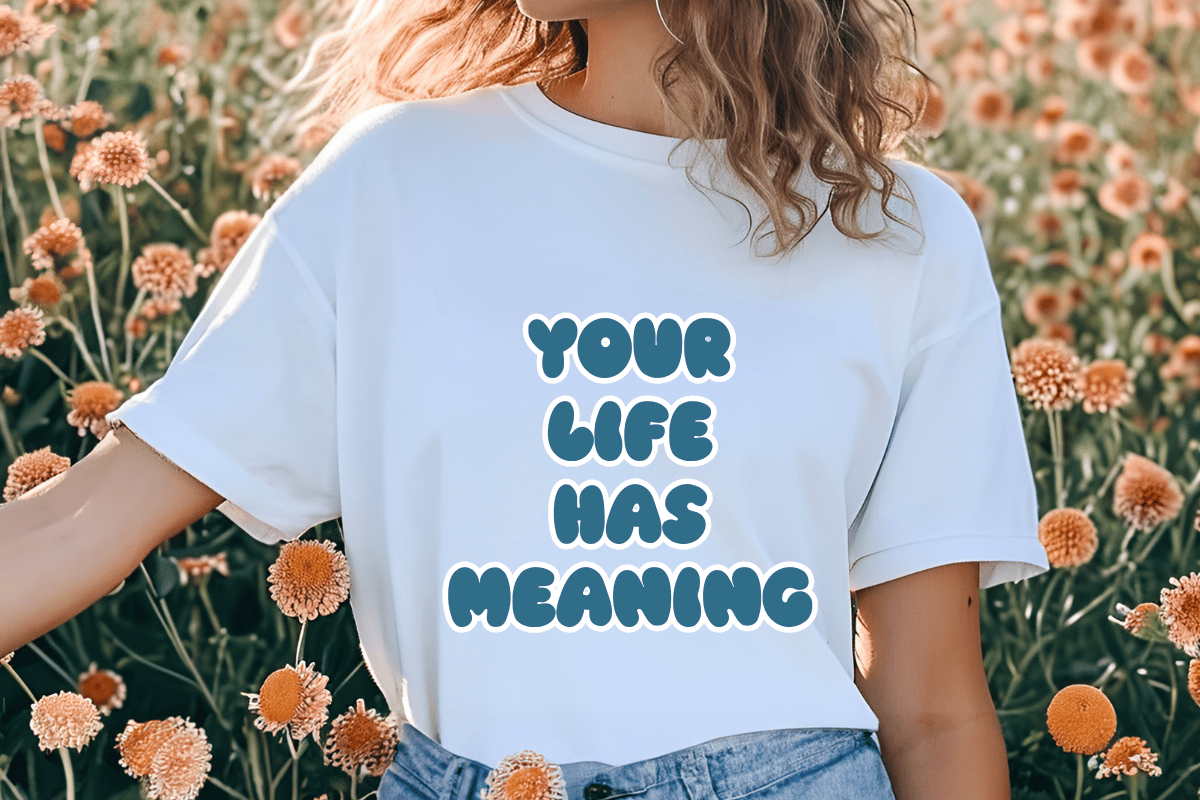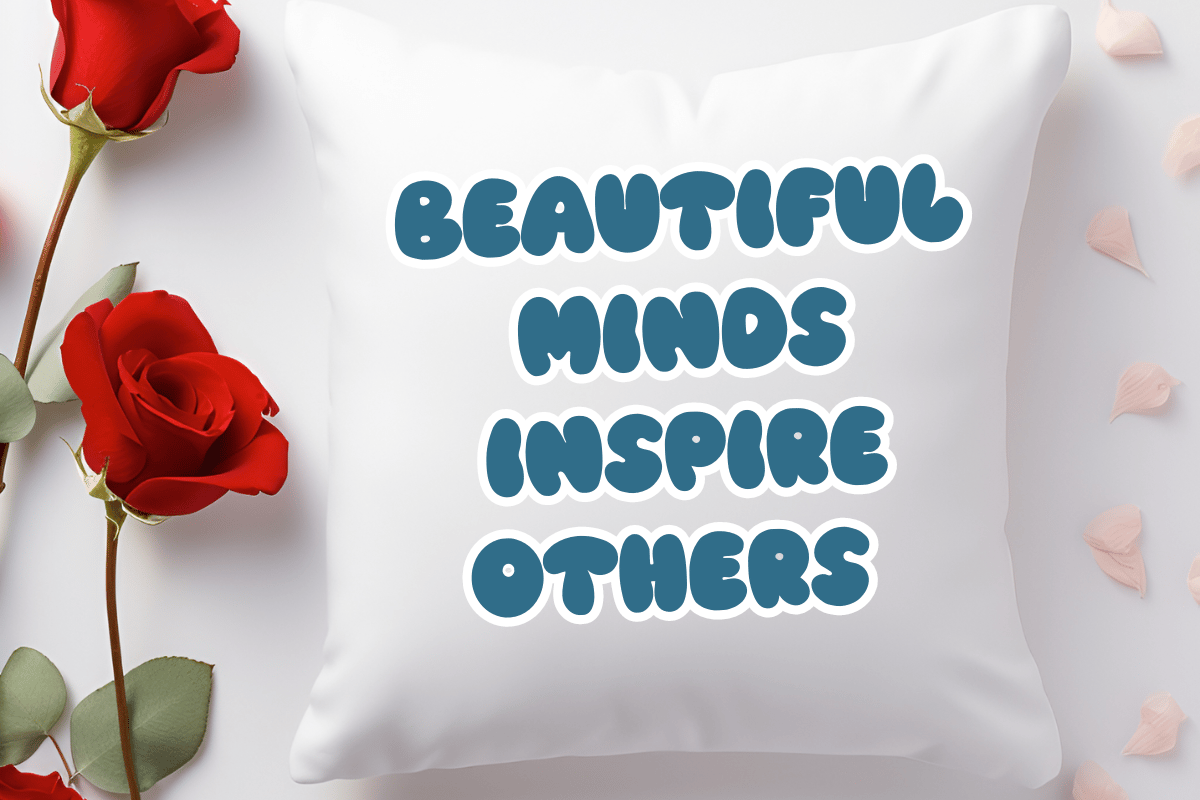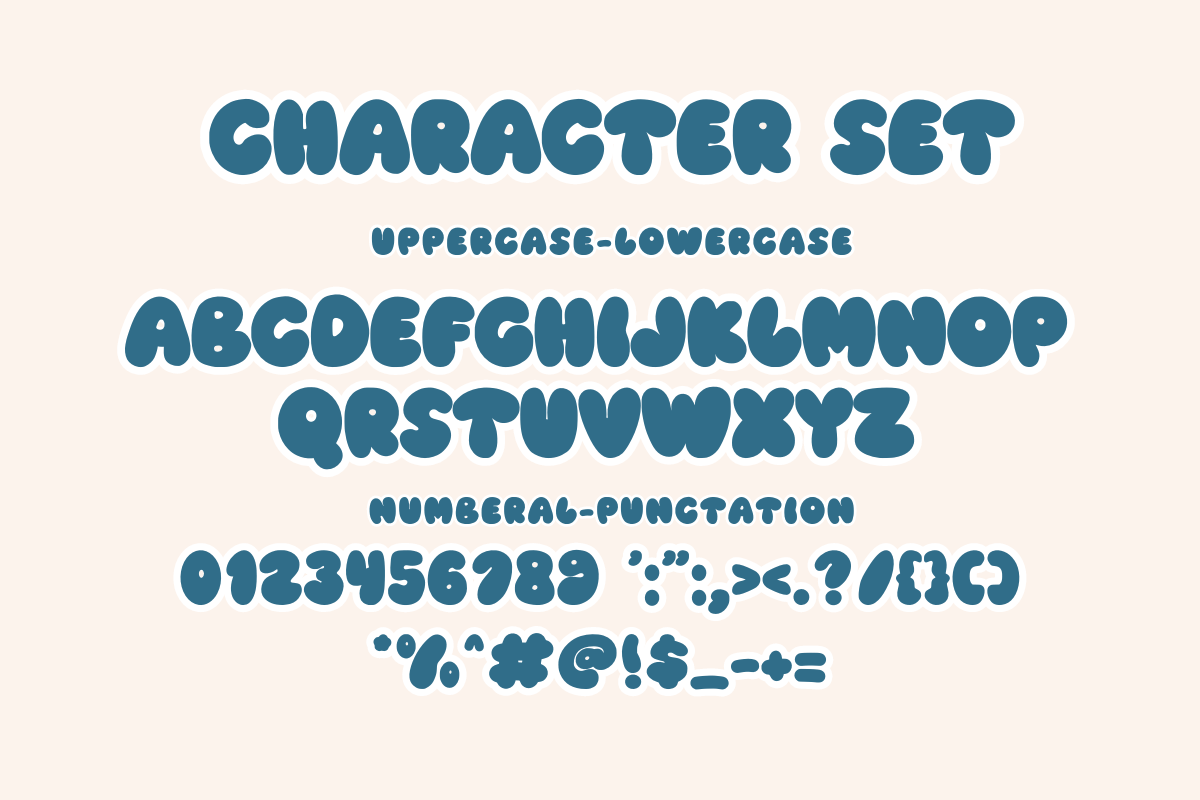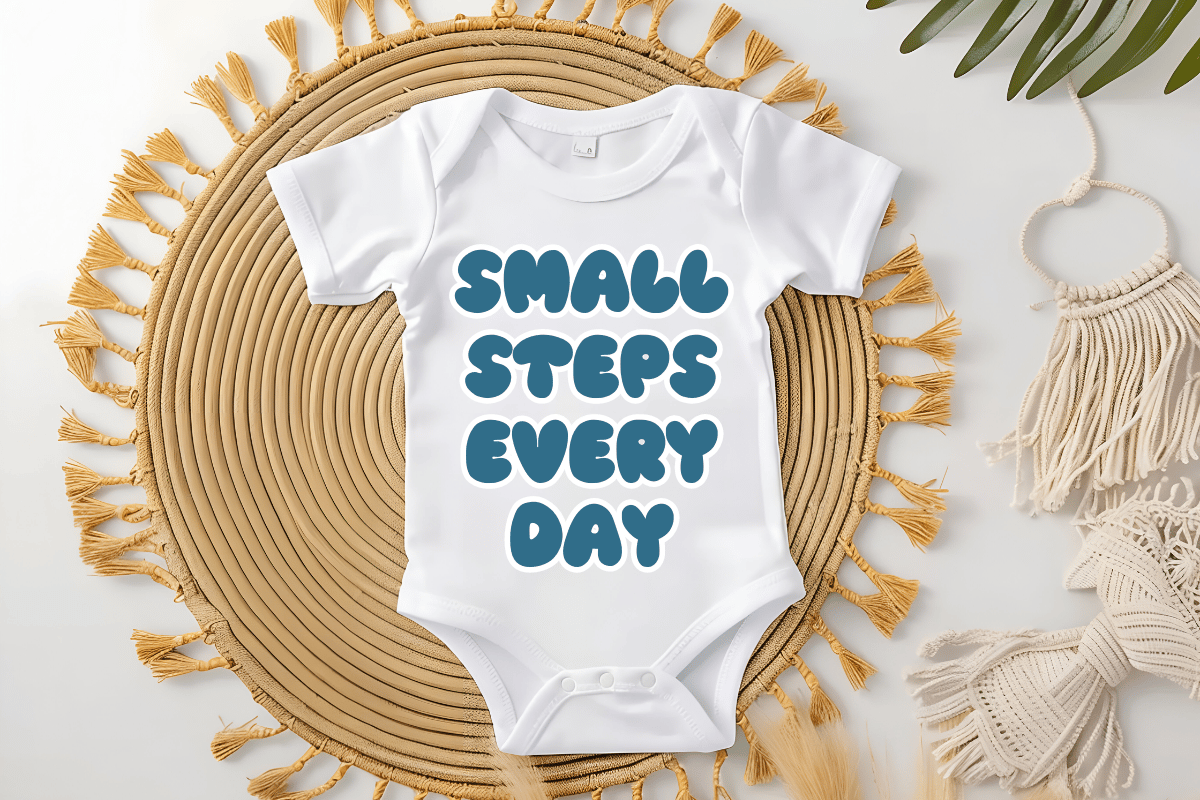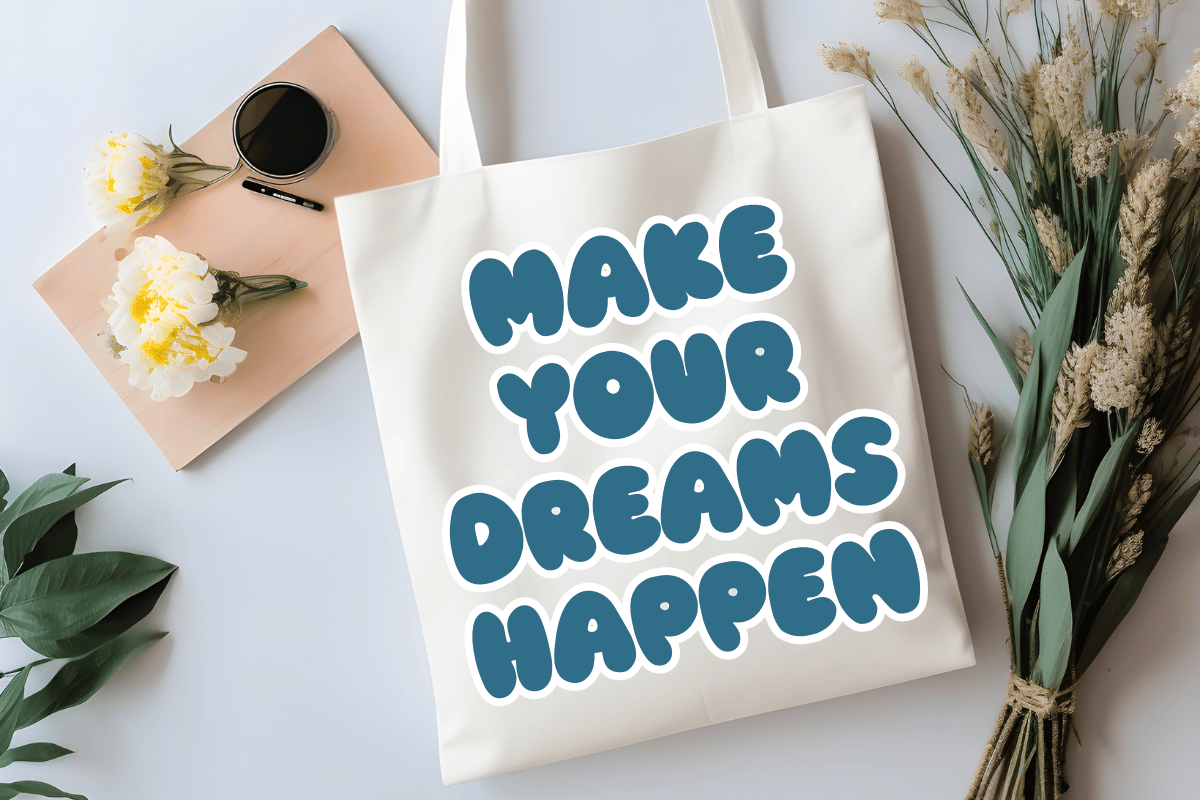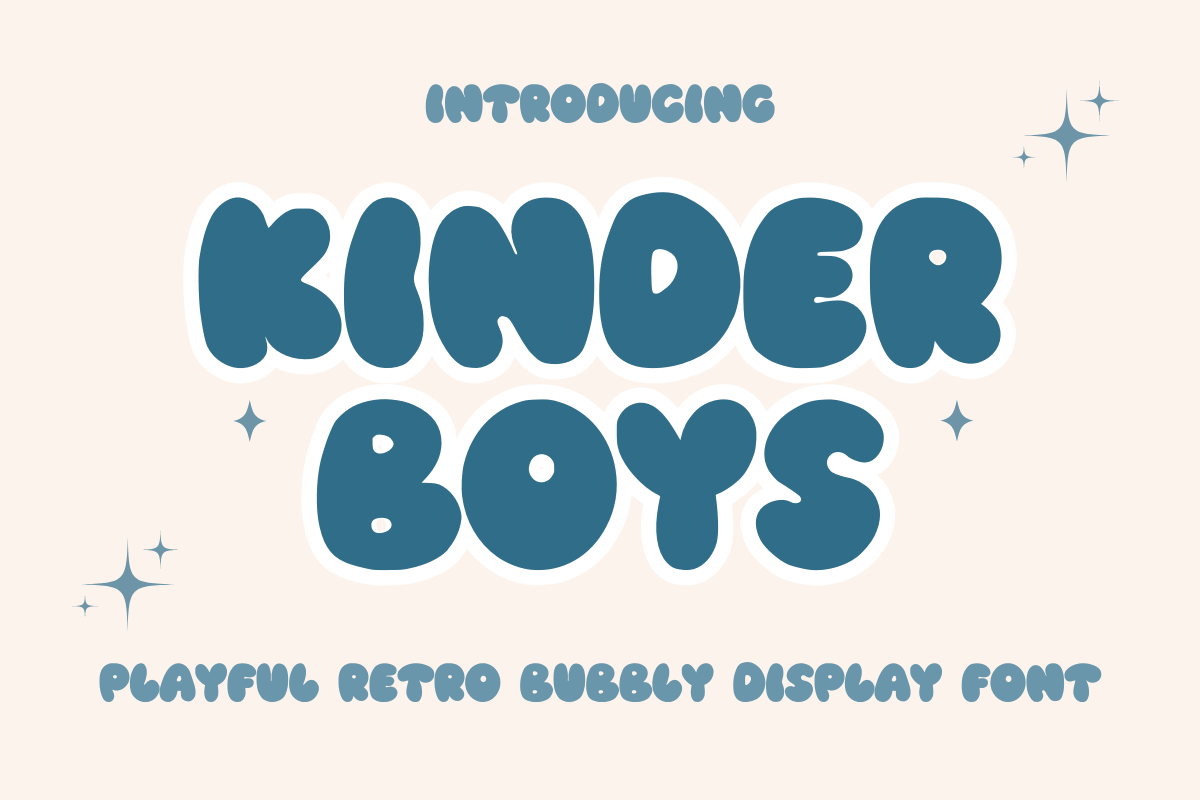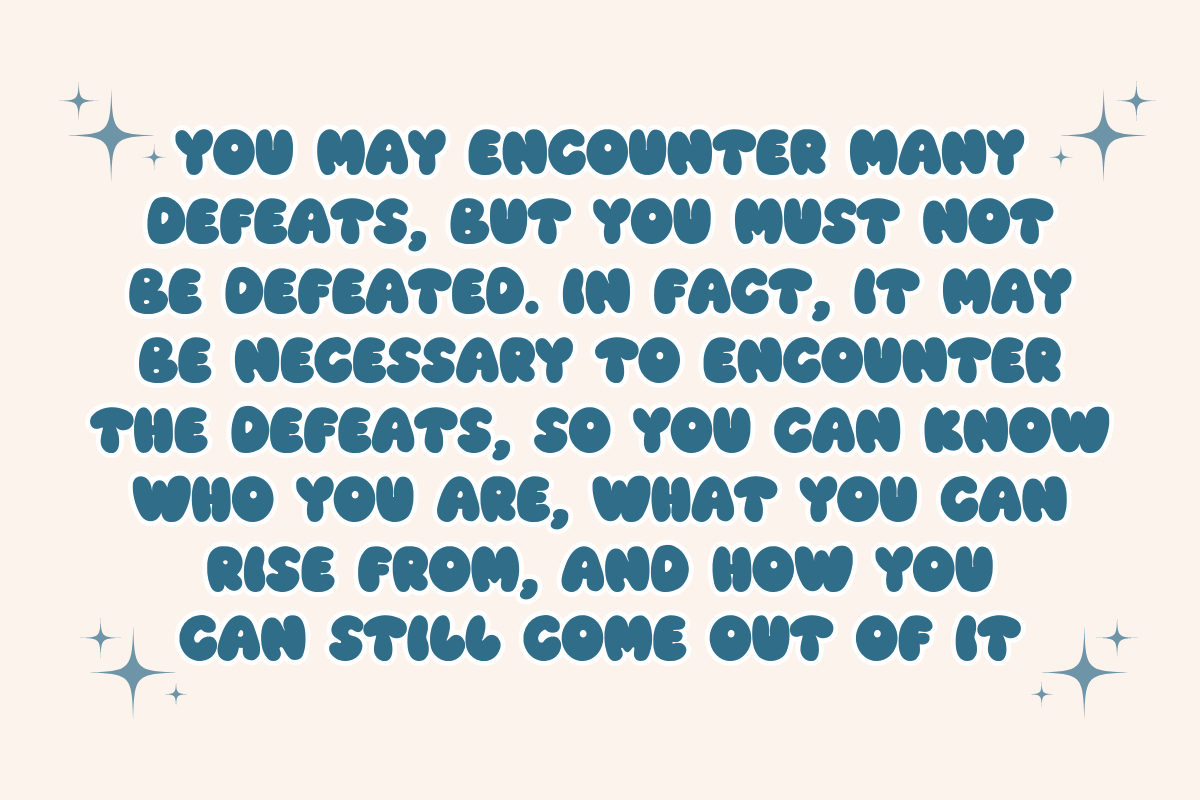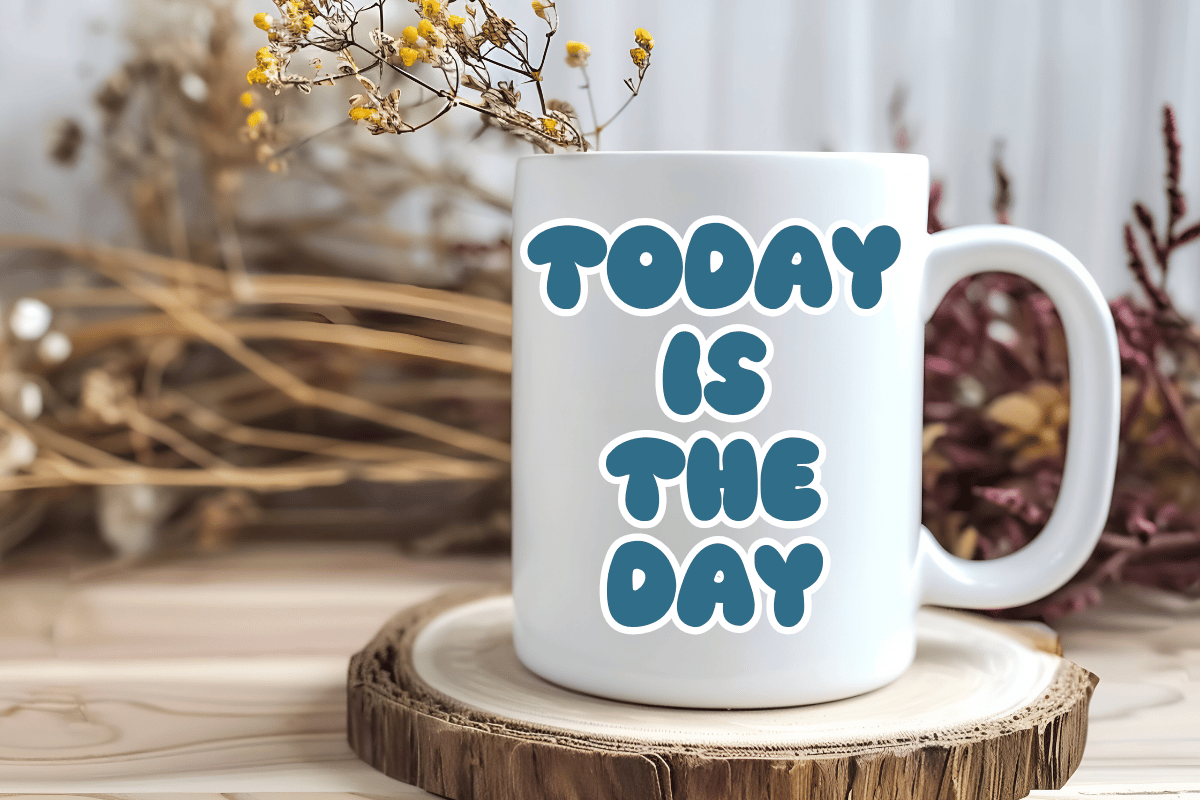
Kinder Boys - Playful Retro Bubble Font for Cricut and Sublimation
Playful Retro Bubble Display Font for Cricut and Sublimation
Kinder boys is a playful retro bubbly display font inspired by the cheerful energy of childhood and the nostalgic, groovy aesthetics of the 1970s. Featuring thick, rounded curves and a bold, bouncy personality, this typeface is meticulously designed to bring instant joy and a "fun-factor" to any creative project. Its smooth, clean outlines are specifically optimized for the crafting community, ensuring a perfect, frustration-free experience for weeding and cutting.
Perfect for: creating high-converting SVG cut files, personalized kids' t-shirts, adorable vinyl stickers, sublimation mugs, nursery wall art, school posters, and playful social media branding. Whether you are creating for a professional Print on Demand (POD) shop or a unique DIY gift, this font offers the bold readability needed to make your products pop.
Great for holiday themes such as Back to School season, Children's Day, Birthdays, and Summer camp events, adding a bright, optimistic, and friendly vibe to all your seasonal celebrations!